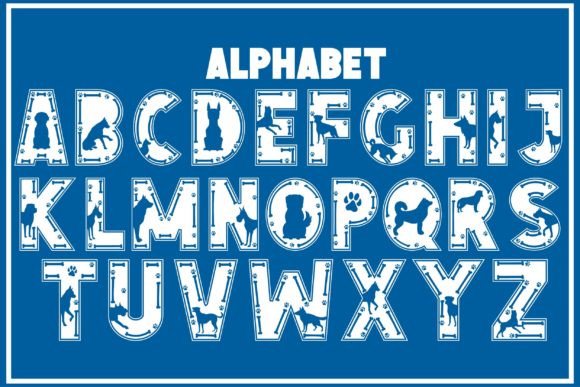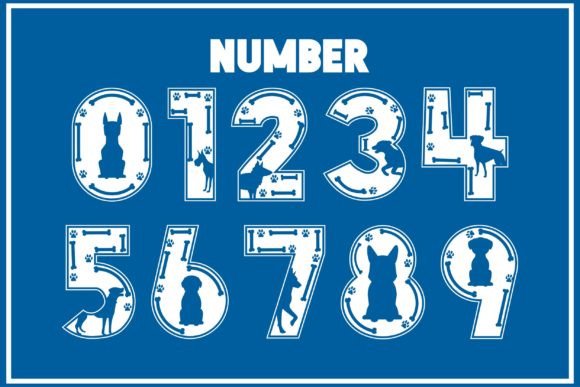
The Ultimate Guide to Good Dog Font: Unleash Your Creativity!
I’ll never forget the time I was working on a project for a client’s pet store, and I was struggling to find the perfect font to capture the playful and friendly vibe of their brand. The client wanted a font that would appeal to pet owners of all ages, and I was determined to find it. That’s when I stumbled upon the Good Dog font, and it instantly became my go-to choice. In this article, I’ll share with you why I love Good Dog, its features, and how to make the most of it in your designs.
An Honest Review of Good Dog Font
What I Love About Good Dog ✨
- ✅ Playful and Fun: Good Dog embodies the perfect blend of playfulness and authenticity, making it ideal for a wide range of projects.
- ✅ Versatile: This font is perfect for blog posts, logos, branding, ads, invitations, greeting cards, planners, photo albums, decorations, and more.
- ✅ Easy to Read: Despite its playful nature, Good Dog remains clear and easy to read, even at smaller font sizes.
- ✅ Unique Personality: This font has a distinct personality that will set your designs apart from the rest.
While Good Dog is an excellent font, it’s not without its limitations. Here are a few things to keep in mind:
- ⚠️ Limited Formality: Good Dog is a decorative font, so it’s not suitable for formal or professional projects that require a more serious tone.
- ⚠️ Glyph Limitations: While Good Dog has a range of glyphs and stylistic alternates, it may not have as many as some other fonts on the market.
The Backstory Behind Good Dog Font
Good Dog was designed with one goal in mind: to create a font that captures the playful and loving spirit of our furry friends. The designer, a self-proclaimed animal lover, wanted to create a font that would bring a smile to people’s faces. With Good Dog, you’ll get a font that’s both fun and authentic.
| Font Name | Good Dog Font |
| Author | Doodle Alphabet |
Q: What type of projects is Good Dog suitable for?
A: Good Dog is perfect for a wide range of projects, including blog posts, logos, branding, ads, invitations, greeting cards, planners, photo albums, decorations, and more.
Q: Does Good Dog support OpenType features?
A: Yes, Good Dog supports OpenType features, including glyphs and stylistic alternates. This allows you to add more creativity and variety to your designs.